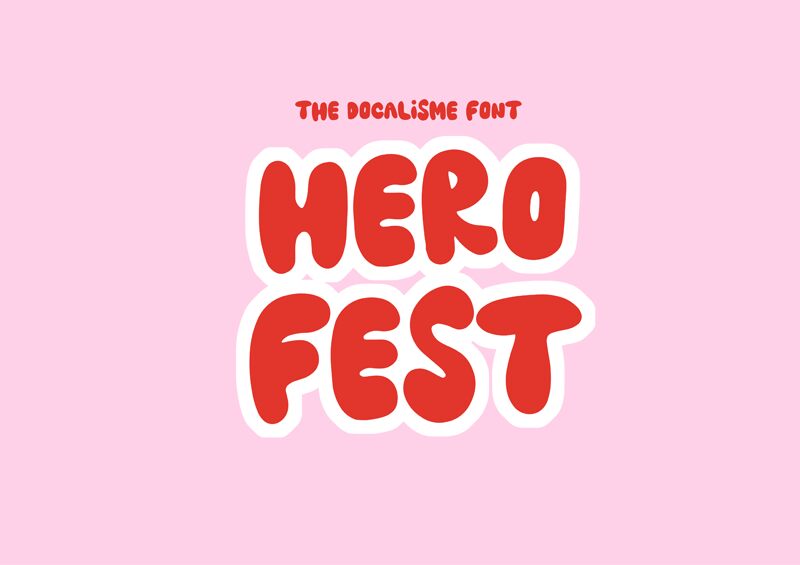
Hero Fest
Hero Fest, designed by The Docallisme - Amry Al Mursalaat, is a display font that packs a punch with its extra-bold weight and cartoon style. This typeface captures the essence of fun and energy, making it an exceptional choice for projects that need to convey excitement and playfulness. Its chunky letters are not just about robust presence; they embody a sense of whimsy and joy, perfect for engaging audiences in everything from animated content to event promotions.
The aesthetic appeal of Hero Fest lies in its ability to stand out. The letters boast generous curves and thick lines, ensuring they make a strong visual impact even from a distance. Whether used in large headers or as part of logo designs, this font is adept at grabbing attention while maintaining readability.
Hero Fest's suitability extends across various creative endeavors; its design is ideal for children's books, party invitations, gaming apps, or any platform that benefits from a touch of lightheartedness. In summary, Hero Fest offers designers a versatile tool to infuse their creations with character and vivacity.